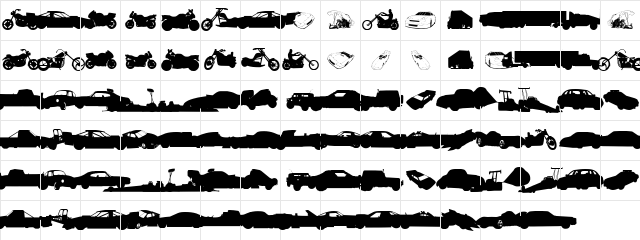
Need for Speed Regular Font Preview
Need for Speed Regular
Design Context for Need for Speed Typeface
Need for Speed is a composed and adaptable typeface that performs quietly and consistently across a wide range of design contexts.